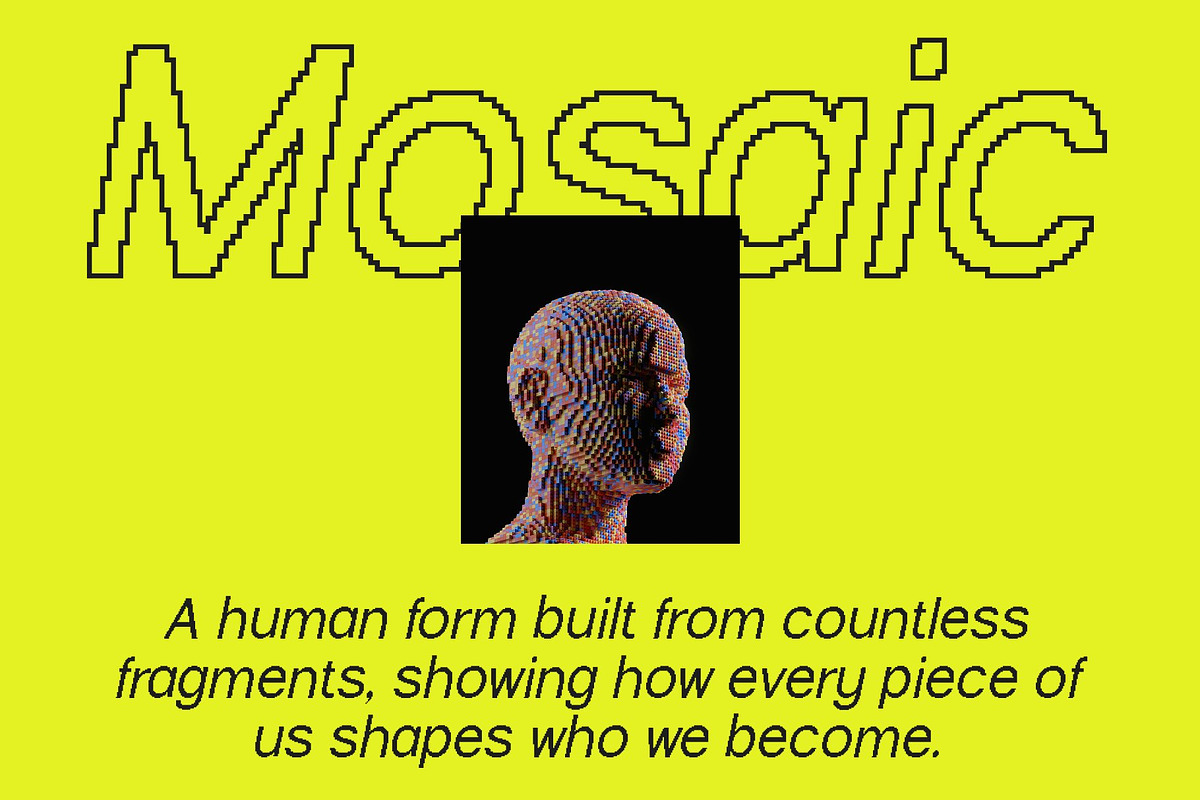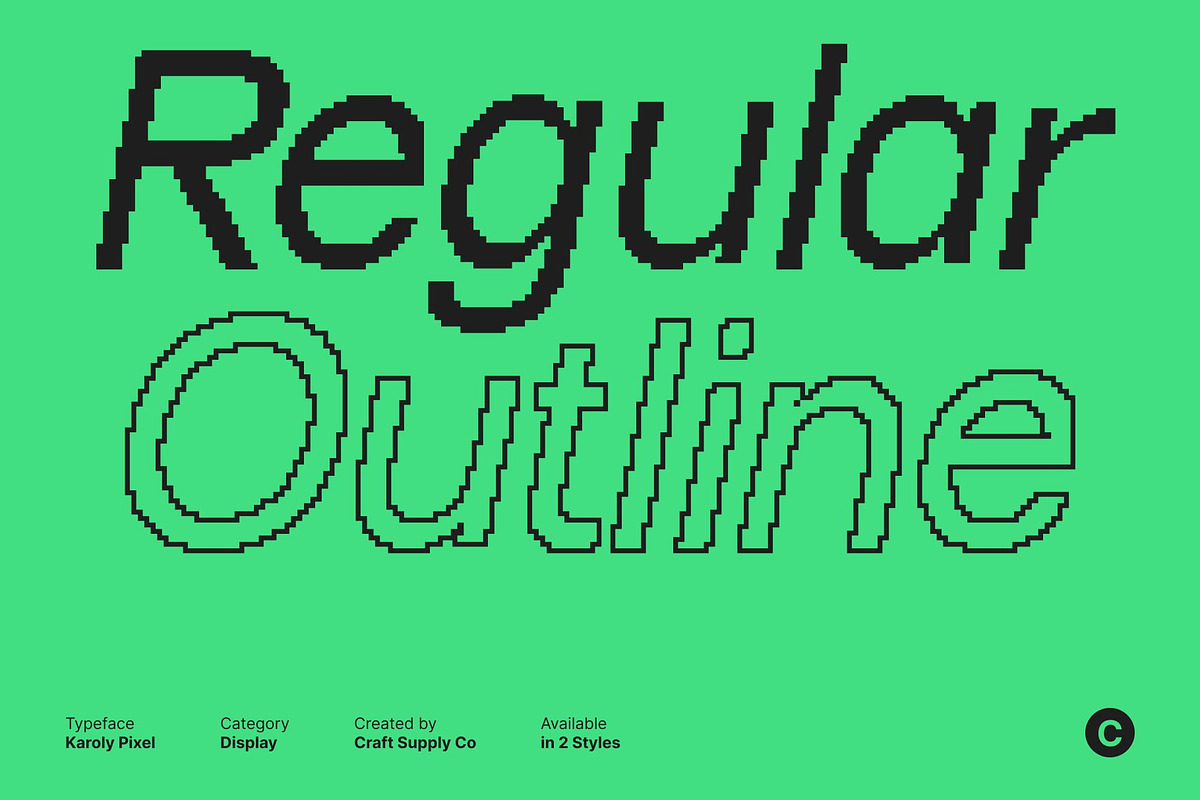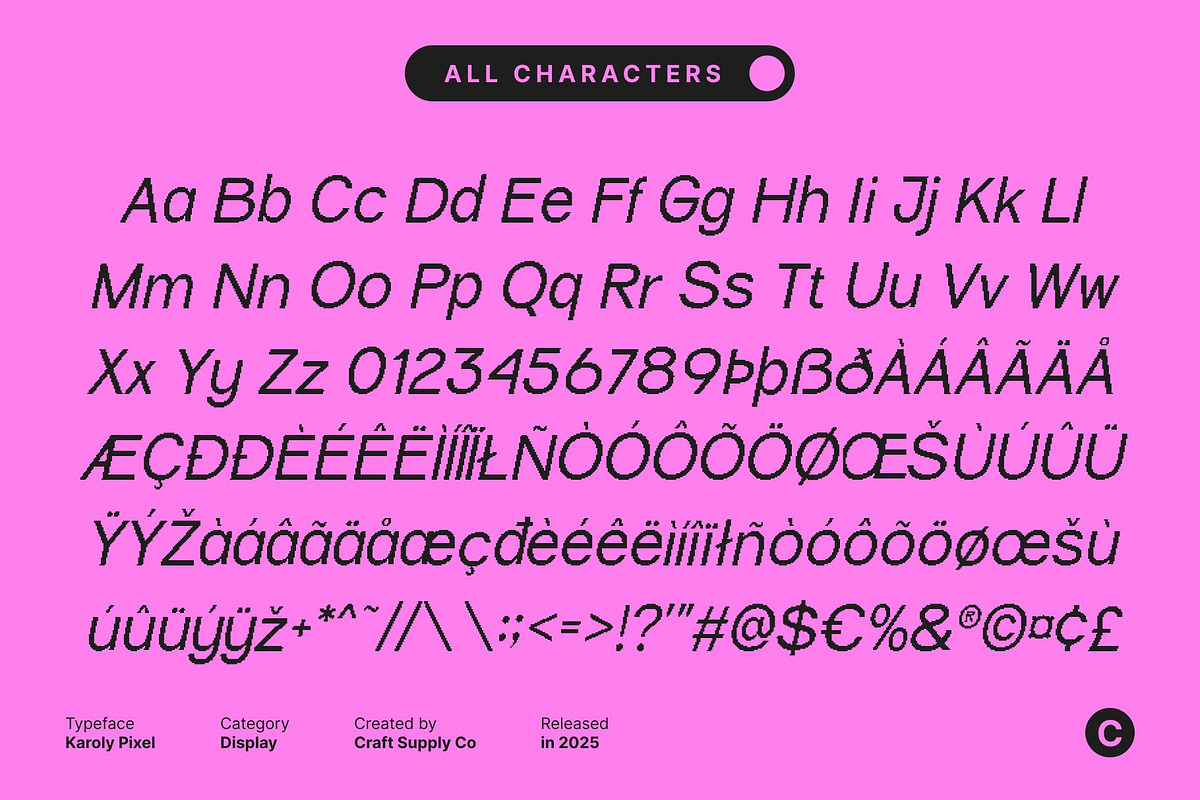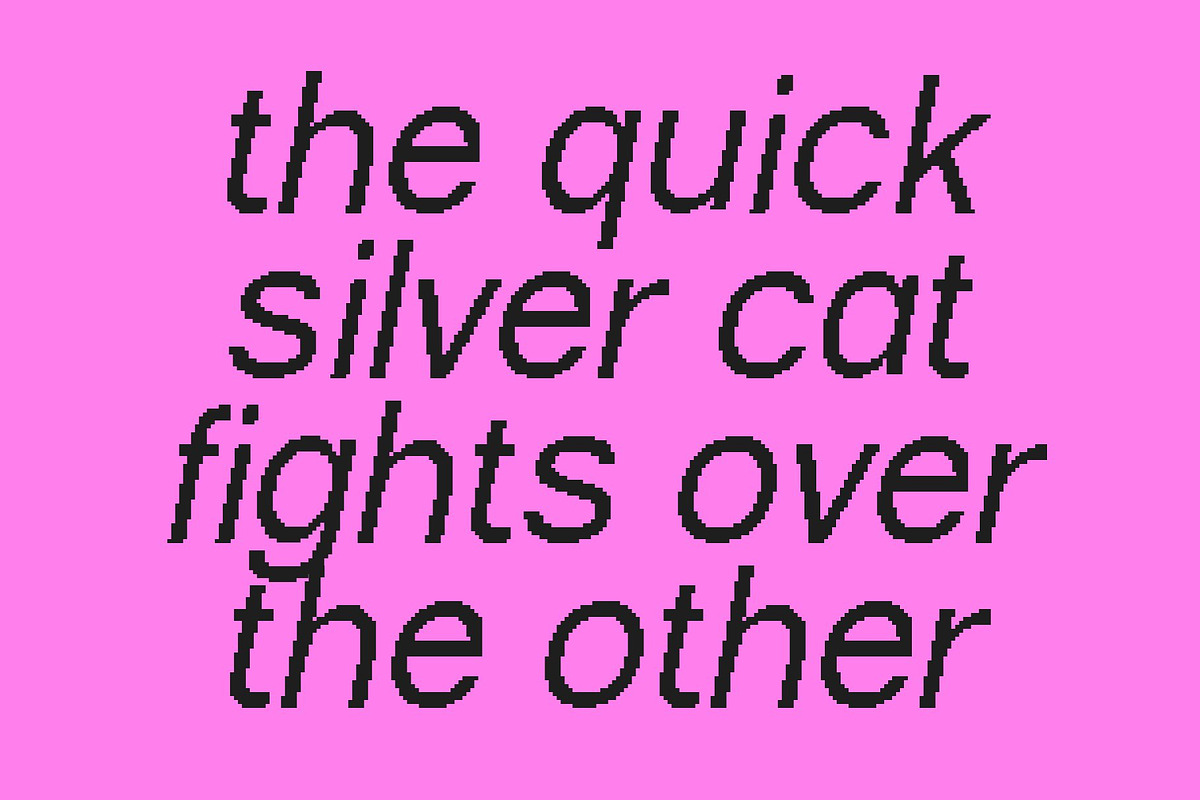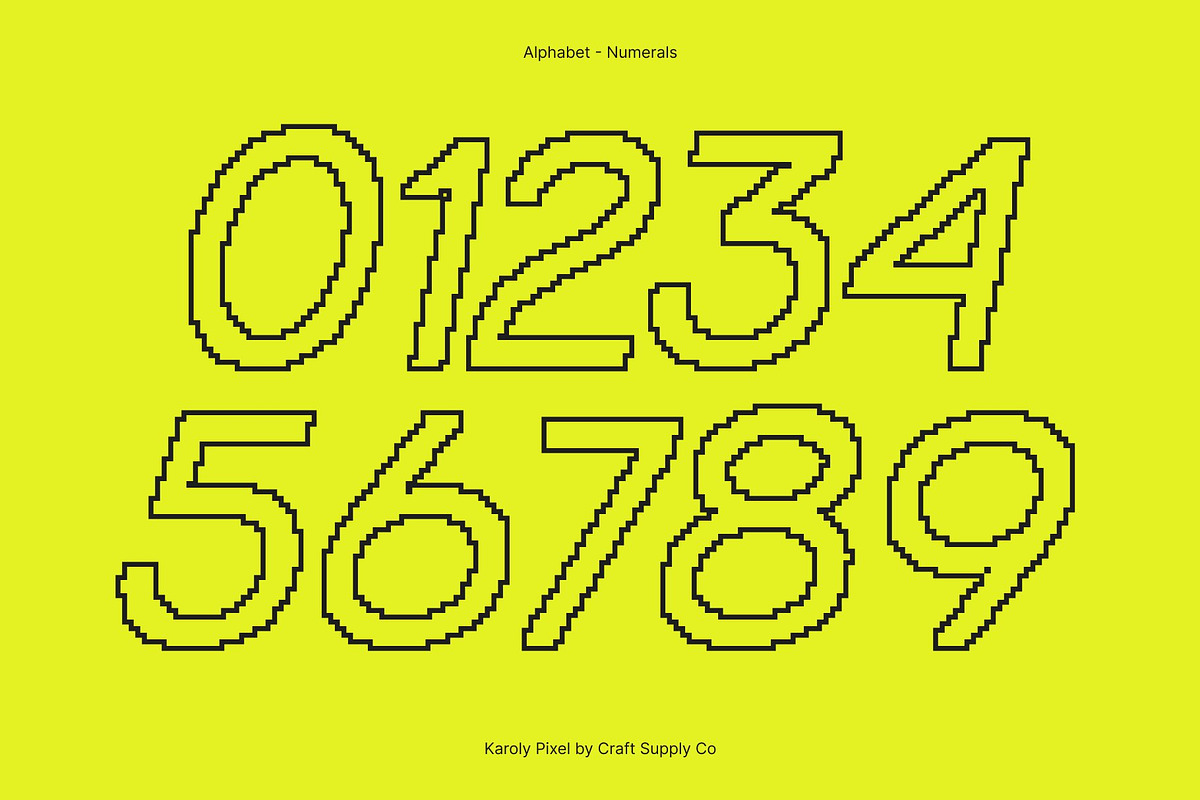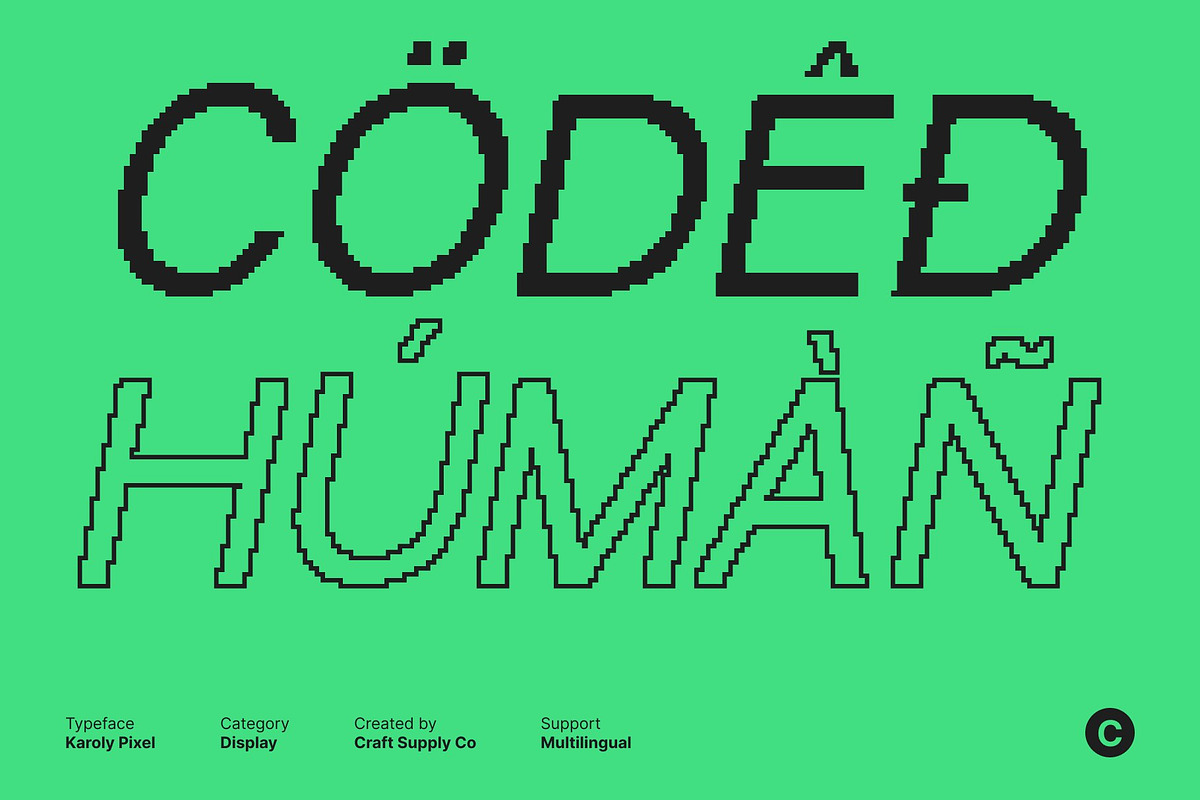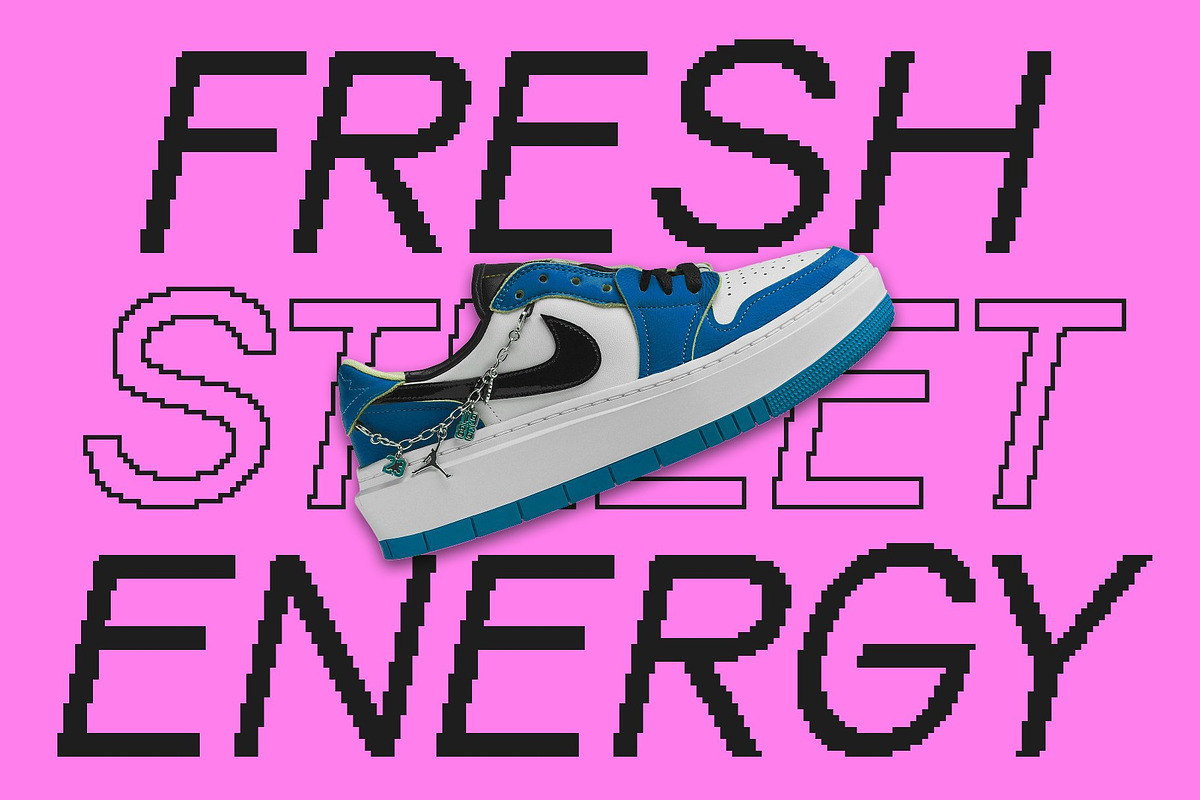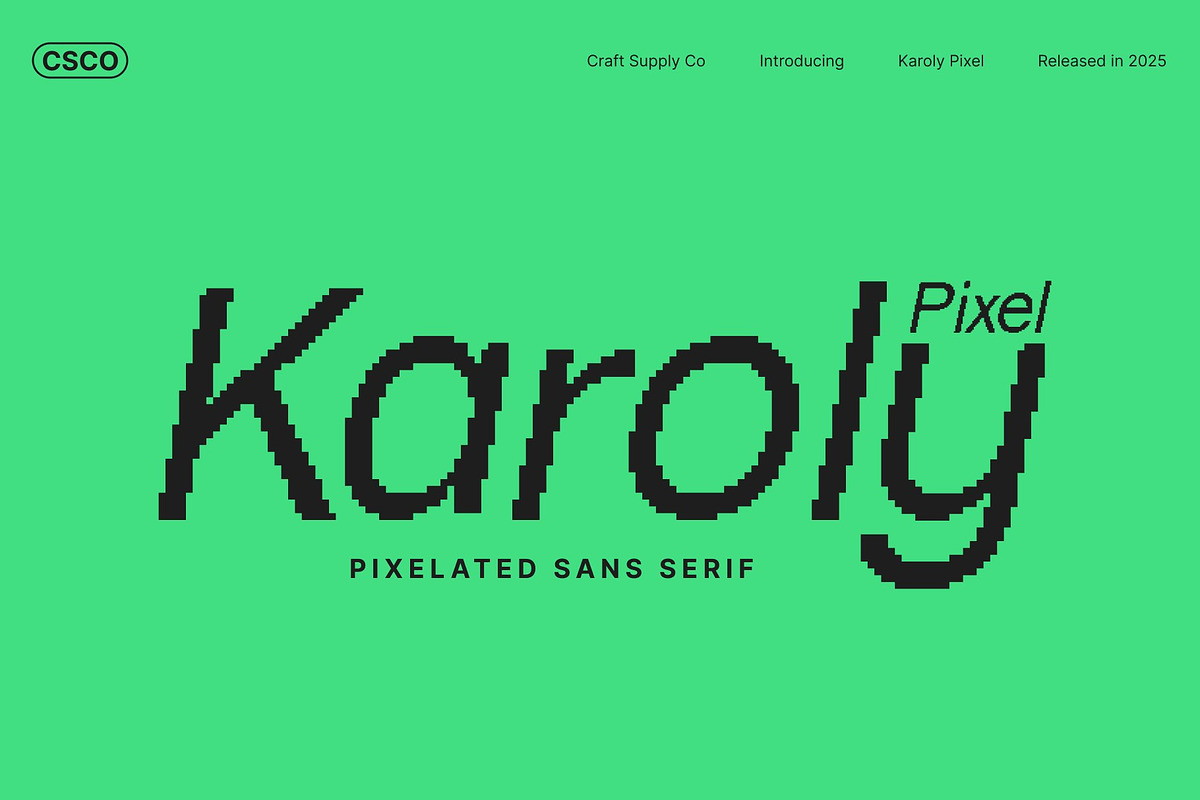
Karoly Pixel
Karoly Pixel – Modern Sans Serif with Sleek Pixel Precision
Sleek Edge with Clean Professional Presence With a sleek edge and strong professional character, this modern sans serif font delivers a polished and contemporary look. Its clean geometry and streamlined shapes create a sense of clarity and confidence, making every letter feel intentional, sharp, and visually balanced. Designed to embody modern minimalism, it instantly elevates any layout with a refined, corporate-ready tone.
Pixel Style for a Fresh Digital Impression The added pixel style introduces a dynamic digital twist, blending the smooth precision of a modern font with the stylistic charm of pixel-inspired detailing. This unique combination creates a futuristic yet approachable visual identity perfect for projects that embrace technology, innovation, and forward-thinking design.
Perfect for Editorials, Digital Design, and Modern Branding Ideal for editorial layouts, website interfaces, digital posters, branding systems, and tech-forward projects, this typeface brings flexibility and visual impact. Its clean construction ensures excellent readability, while the pixel accents make it memorable and expressive, especially in headlines, logos, and display typography.
A Blend of Precision, Minimalism, and Pixel Craft Balancing modern professionalism with a stylish digital twist, this font serves as a versatile tool for designers seeking a clean yet standout aesthetic. It merges sleek contemporary forms with pixel artistry, resulting in a typeface that feels both modern and creative perfect for shaping bold, future-ready visual identities.